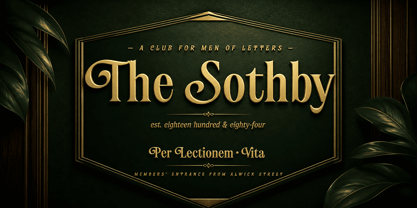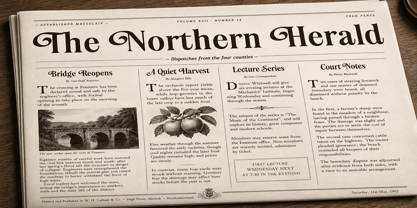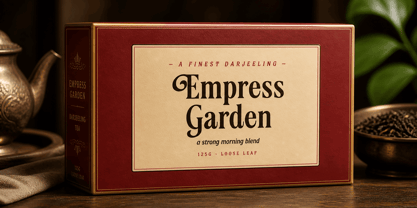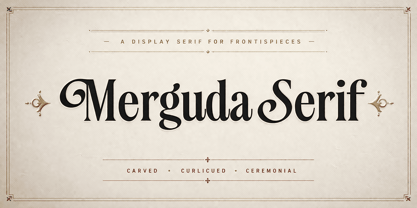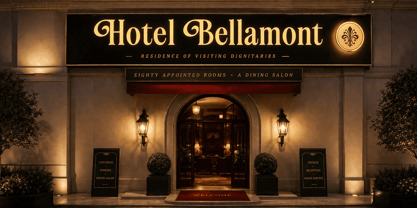
Merguda Serif
La familia tipográfica Merguda Serif fue diseñada por Måns Grebäck y publicada por Mans Greback. Merguda Serif contiene 4 estilos y opciones de paquete familiar. Más información sobre esta familia
Merguda Serif is a decorative display serif with curlicued capitals and a generous old-style rhythm.
The capitals do most of the talking — they swing through wide curlicues that loop back into the body of the letter, while the lowercase keeps a steadier, more even pace so the caps have somewhere to land. Strokes are confidently weighted, the serifs cupped, the negative spaces left enough air that the letters never feel crowded. It reads less like a contemporary revival and more like the kind of face you'd find on the title page of a book printed two centuries ago and kept on a shelf since.
It is the kind of lettering you can picture set in deep ink on the program of an opera you have never heard, or stamped in gold leaf along the spine of a book you'd take down for the cover alone.
The font is built with advanced functionality and guaranteed top-notch quality, containing stylistic and contextual alternates, ligatures and more automatic and manual features; all to give you full control and customizability.
It has extensive lingual support, covering all Latin-based languages, from North Europa to South Africa, from America to South-East Asia. It contains all characters and symbols you'll ever need, including all punctuation and numbers.
Designed and created by Mans Greback.